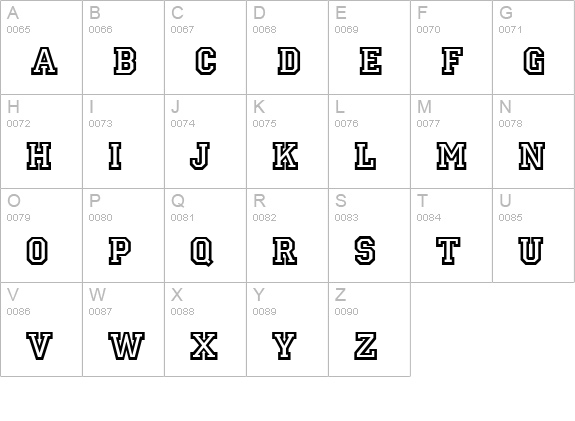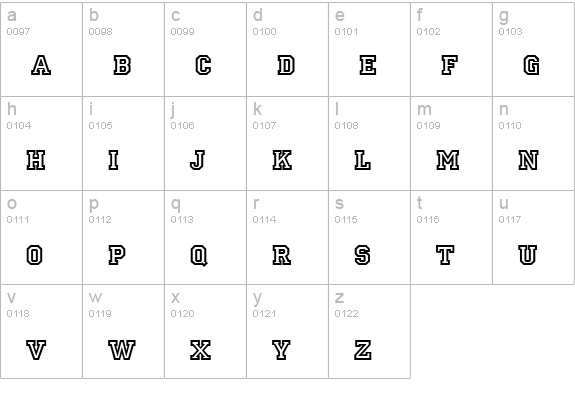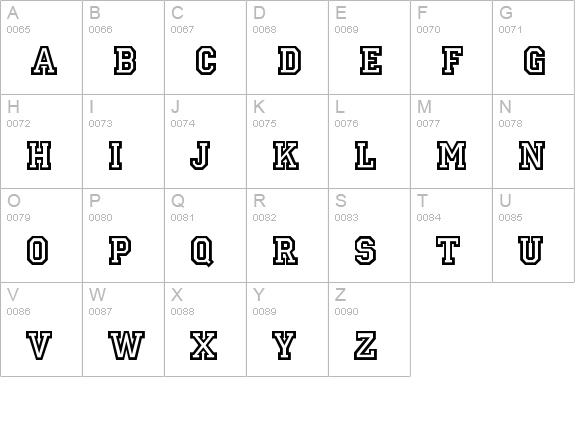
Principal-Regular Font Details
Principal-Regular is the standard, neutral variant in the Principal typeface family \xE2\x80\x94 well suited to general body text, paragraphs, and standard typographic work.
Principal-Regular font is a versatile and modern typeface that exudes elegance and sophistication. With its clean lines and balanced proportions, this font is perfect for a wide range of design projects, from branding to editorial design. Its timeless appeal makes it suitable for both digital and print applications. The best part is that Principal-Regular font is available for free download at FontsMarket.com. This means you can easily access and use this high-quality font in your projects without any cost. Add a touch of professionalism and style to your designs with Principal-Regular font today!